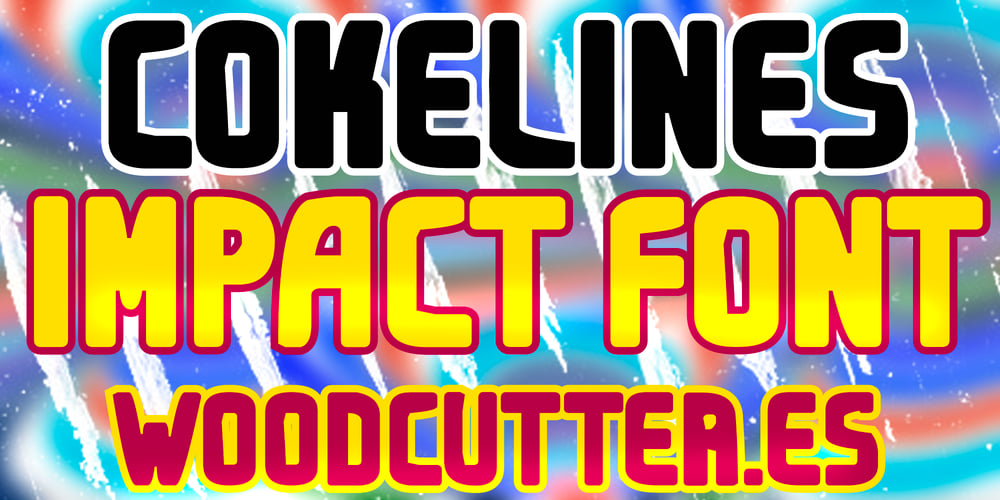
Cokelines Font Family was designed by Jordi Manero and published by Woodcutter. Cokelines contains 1 styles and family package options. “Cokelines” is an uppercase typeface characterized by its visible imperfections along the contours, giving it a rustic and handcrafted appearance. Each letter seems to have been sculpted by hand, with irregularities that add a unique and authentic character. This font includes accents, making it suitable for a wide range of uses in different languages. Ideal for bold headlines, posters, and designs seeking a raw and casual aesthetic, “Cokelines” adds a touch of personality and originality to any creative project.